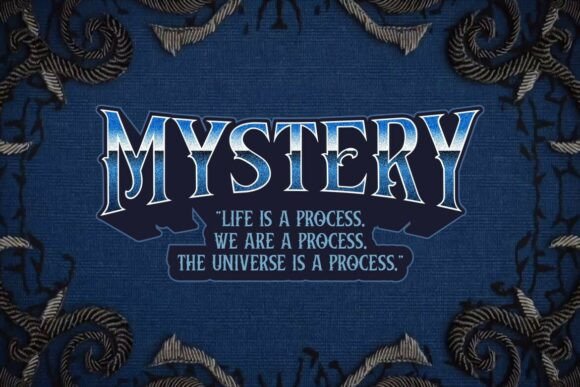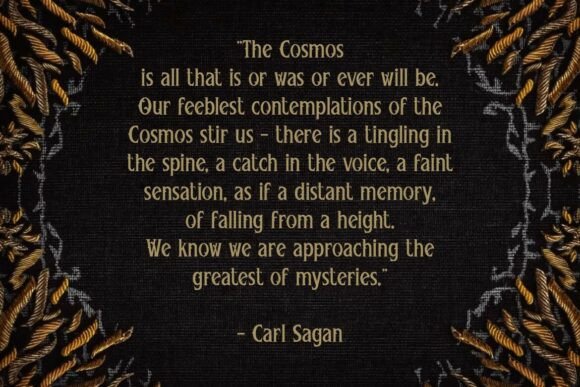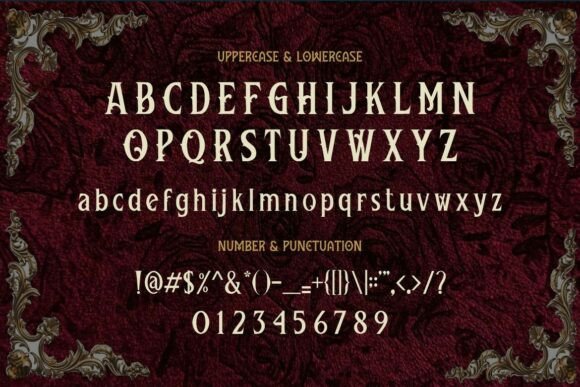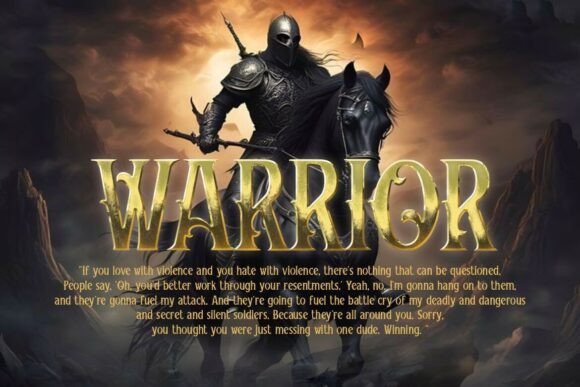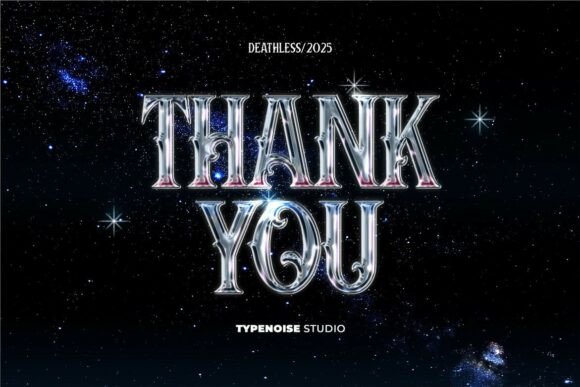
Introducing DEATHLESS: The Ultimate Gothic Vintage Display Font
In the world of typography, a good font can make all the difference in bringing your creative projects to life. If you’re looking for a typeface that exudes dramatic elegance, timeless character, and a touch of mystery, look no further than DEATHLESS. This bold and intricately crafted Gothic vintage display font is designed to make a strong visual impact without sacrificing clarity, making it perfect for designers who want to elevate their work to the next level.
The Inspiration Behind DEATHLESS
DEATHLESS draws inspiration from the dark fantasy and medieval aesthetics, with sharp serif forms, ornamental curves, and distinctive shapes that evoke a sense of power and mystery. The font’s design is carefully balanced to ensure that every letter feels powerful, yet refined and readable. This makes DEATHLESS an ideal choice for designers who want to create epic titles, add an antique flair to a brand, or simply want to make a statement with their typography.
Key Features of DEATHLESS
- Bold and Intricately Crafted Design: DEATHLESS boasts a bold and intricately crafted design that is sure to turn heads. Its sharp serif forms and ornamental curves add a touch of elegance and sophistication to any project.
- Medieval-Inspired Shapes: The font’s medieval-inspired shapes give it a unique and distinctive character that sets it apart from other Gothic fonts.
- Dark Fantasy Aesthetics: DEATHLESS is designed to evoke a sense of dark fantasy and mystery, making it perfect for designers who want to create a dramatic and captivating visual impact.
- Refined Readability: Despite its bold and intricate design, DEATHLESS is carefully balanced to ensure refined readability, making it suitable for use in a variety of creative projects.
DEATHLESS is perfect for designers and crafters who want to add a touch of elegance and sophistication to their work. Whether you’re creating epic titles, branding materials, or simply want to elevate your typography, DEATHLESS is the perfect choice. Its versatility makes it suitable for use in a variety of creative projects, including:
- Branding and Logo Design: DEATHLESS is perfect for creating memorable and impactful logos that make a statement.
- Title and Header Design: The font’s bold and intricate design makes it ideal for creating eye-catching titles and headers.
- Packaging and Label Design: DEATHLESS can add a touch of elegance and sophistication to packaging and label design.
- Advertising and Marketing Materials: The font’s dark fantasy aesthetics and refined readability make it perfect for use in advertising and marketing materials.
Why Choose DEATHLESS?
So why choose DEATHLESS over other Gothic fonts? Here are just a few reasons:
- Unique and Distinctive Character: DEATHLESS has a unique and distinctive character that sets it apart from other Gothic fonts.
- High-Quality Design: The font is designed to the highest standards, ensuring a clean and polished look that will elevate your creative projects.
- Versatility: DEATHLESS is versatile and can be used in a variety of creative projects, from branding and logo design to title and header design.
- Easy to Read: Despite its bold and intricate design, DEATHLESS is carefully balanced to ensure refined readability.
In conclusion, DEATHLESS is a bold and intricately crafted Gothic vintage display font that is perfect for designers who want to add a touch of dramatic elegance and timeless character to their creative projects. Its sharp serif forms, ornamental curves, and distinctive medieval-inspired shapes make every letter feel powerful, mysterious, and full of personality. With its dark fantasy aesthetics and refined readability, DEATHLESS is the perfect choice for designers and crafters who want to make a statement with their typography.